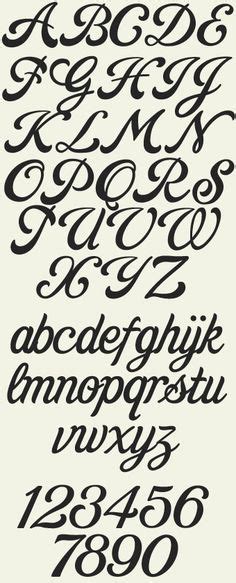
Download Packard Script Font Free - They are organized into highly regular formal types similar to cursive writing and looser, more casual scripts. Download a printable keyguide of the swashes here.
Although fonts are constantly being added to the portal, due to the limited resources of the administration, it is difficult to keep track of all the updates. Lhf packard script regular, lhf packard script fancy and lhf. As the designs of script fonts are based on the fluidity of real handwriting, they can add a personal touch to pretty much any design, especially one that involves typography.
Inspired by the old packard car logo, this set includes 3 fonts:
Script font is a broad style that refers to any typeface that looks like it was drawn by hand. Search results for 'packard script' (free packard script fonts). Lhf packard script regular, lhf packard script fancy and lhf packard both script versions include 12 bonus alternates.
Lhf packard script regular, lhf packard script fancy and lhf packard both script versions include 12 bonus alternates. We do not host any torrent files or links of packard. So you can use these fonts for your logos, clothing, banners, posters, or even youtube thumbnails! Search results for 'packard script' (free packard script fonts). Packard antique 2 styles hide show add to favorite download. As the designs of script fonts are based on the fluidity of real handwriting, they can add a personal touch to pretty much any design, especially one that involves typography. Inspired by the old packard car logo, this set includes 3 fonts: The scrapbooker set of fonts is a trademark of carolina marando & alejandro paul for sudtipos. Google fonts now supports variable fonts. Download a printable keyguide of the swashes here. 17 free lhf packard fonts. Lhf packard script regular, lhf packard script fancy and lhf. Font squirrel relies on advertising in order to keep bringing you great new free fonts and to keep making improvements to the web font generator.
Some scripts are more formal like elegant calligraphy, while others are casual like cursive handwriting. Download 5000+ high quality free fonts from various categories sans serif, serif, script, display, basic, numbers and more.
Scrapbooker script w00 regular font info. Download a printable keyguide of the swashes here.
Includes 6 different versions with 15 bonus alternates on seldom used punctuation keys. Lhf packard script regular, lhf packard script fancy and lhf packard both script versions include 12 bonus alternates.
All of these fonts are 100% free, both for personal and commercial uses. Set of 26 catchwords crafted from several of charles borges' fonts.
Down fonts, free fonts download, calligraphy fonts, tattoo fonts, valentine fonts, fontsdata, blog fonts, dafont top, fontsme Lhf packard script regular, lhf packard script fancy and lhf packard both script versions include 12 bonus alternates.
Set of 26 catchwords crafted from several of charles borges' fonts. As the designs of script fonts are based on the fluidity of real handwriting, they can add a personal touch to pretty much any design, especially one that involves typography.
They are organized into highly regular formal types similar to cursive writing and looser, more casual scripts. Licensed for personal and commercial use.
Script font is a broad style that refers to any typeface that looks like it was drawn by hand. Licensed for personal and commercial use.
Lhf packard script fancy and lhf packard script swashes. Browse thousands of free fonts to download from a unique collection of the best and new typefaces.